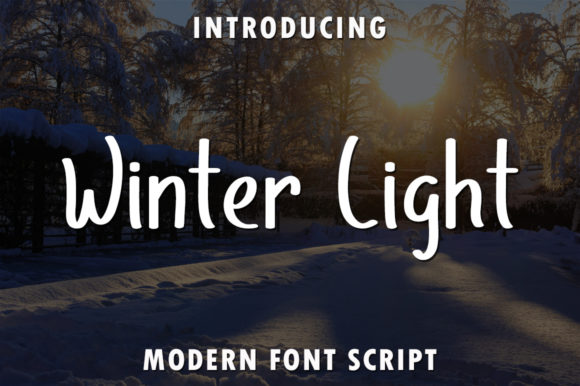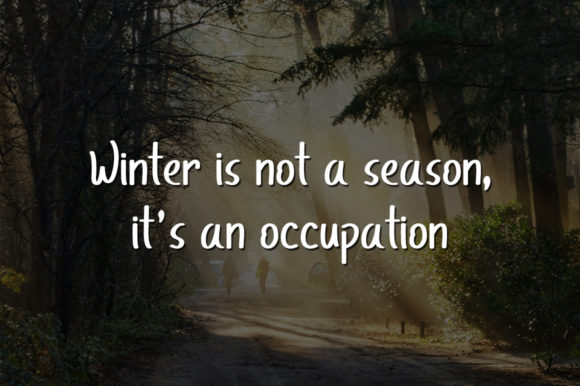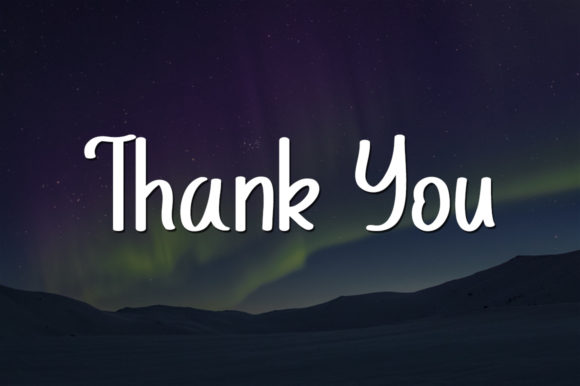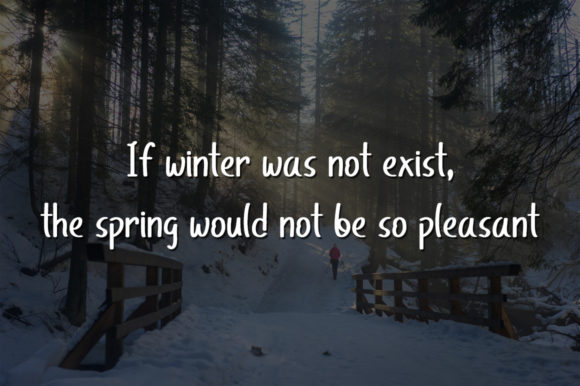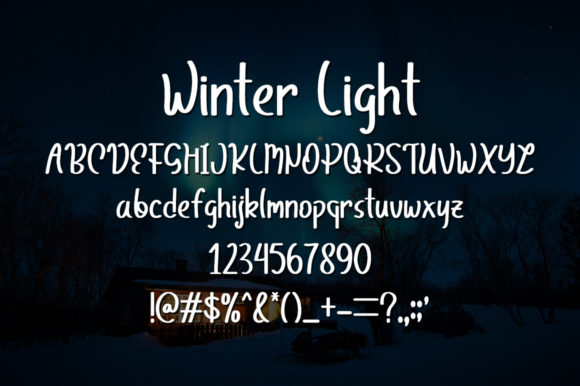
Winter Light Font
About Winter Light Font
Winter Light is a sweet, all round and flexible handwritten font. Warm, romantic and jolly, this font will turn each of your project ideas into real works of art. Have fun with this beautiful font and explore its endless variations.